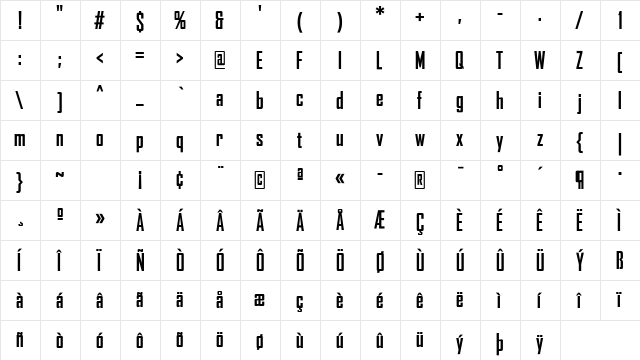
AgencyFB Bold Cond Regular Font Preview
AgencyFB Bold Cond Regular
AgencyFB Bold Cond Regular Font Details
Design Context for AgencyFB Bold Cond Typeface
AgencyFB Bold Cond is a composed and adaptable typeface that performs quietly and consistently across a wide range of design contexts. Its bold stroke weight gives it real presence on the page. The condensed width makes it efficient for tight spaces without sacrificing legibility.